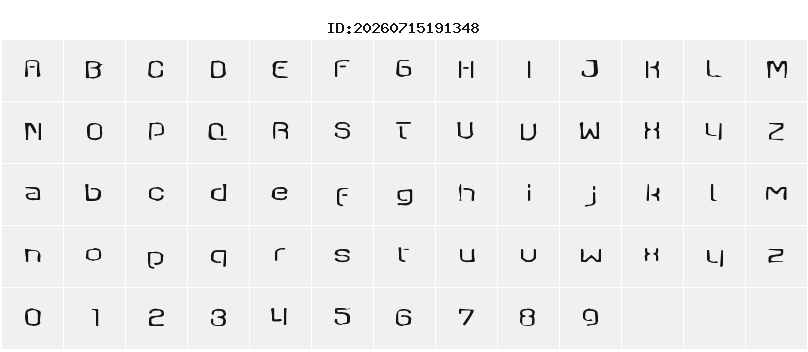
Axaxax Gaunt Preview
• Font Name: Axaxax Gaunt
• Font ID: RayLarabie: Axaxax Gaunt: 2000
• Full Font Name: Axaxax Gaunt
• Version: Version 2.0; 2000; initial release
• PostScript Name: AxaxaxGaunt
• Character Count: 191
• Designer: ray larabie
Axaxax Gaunt.ttf is a modern, elegant sans-serif font designed for ultimate readability and visual harmony. Perfect for branding, headlines, web design, and print materials.